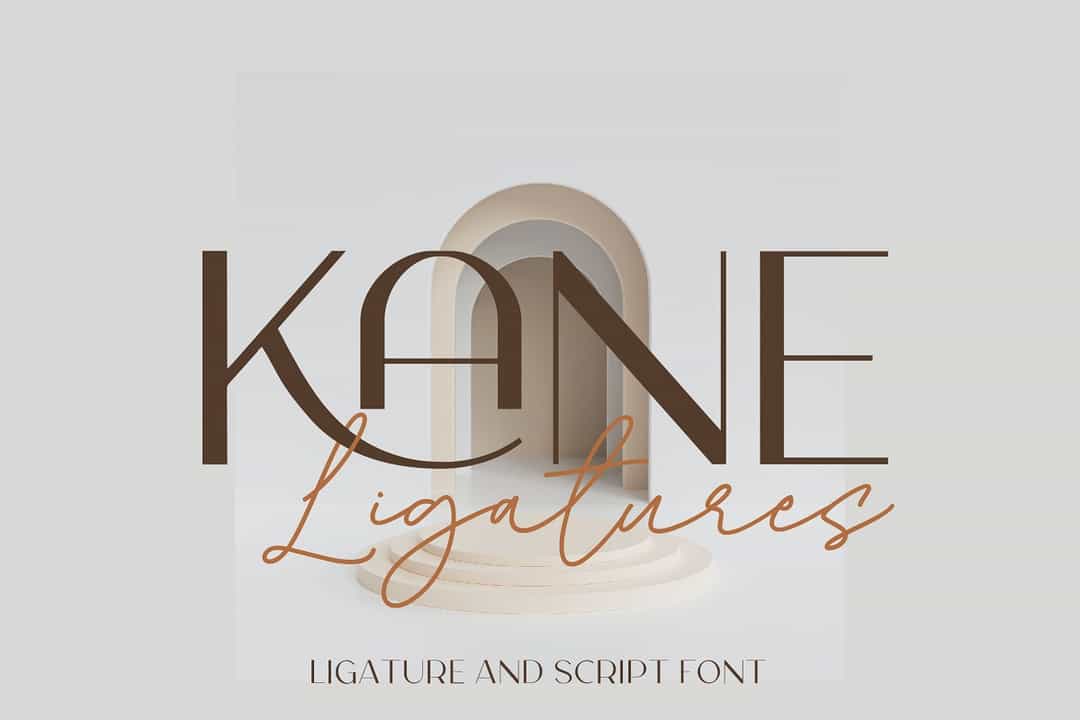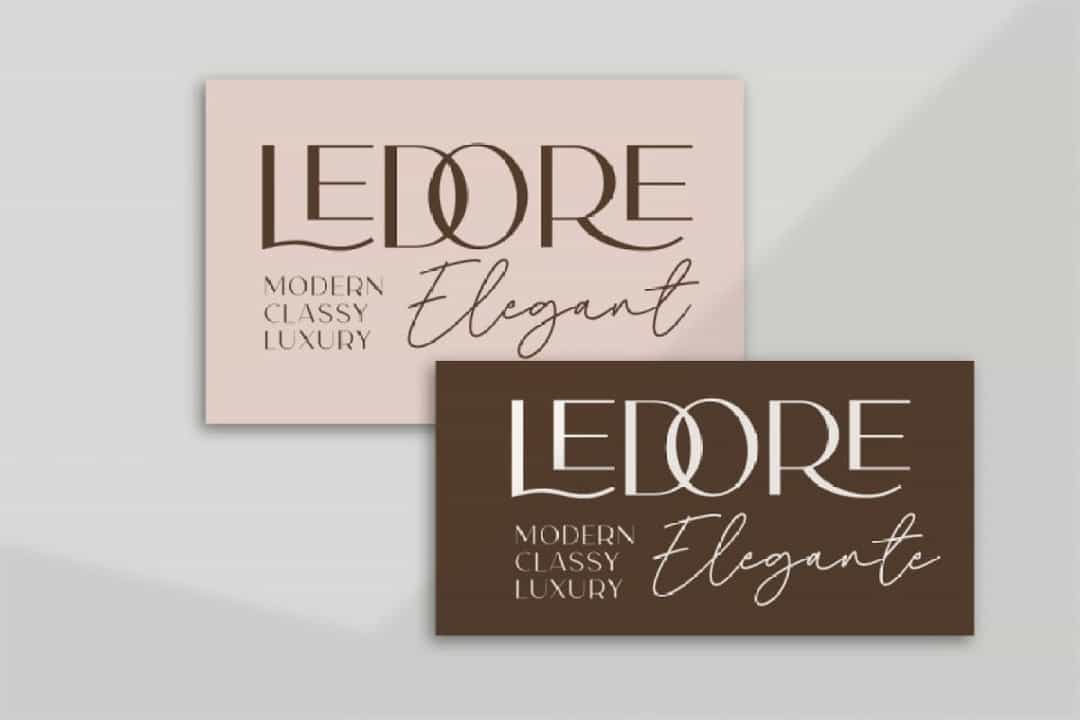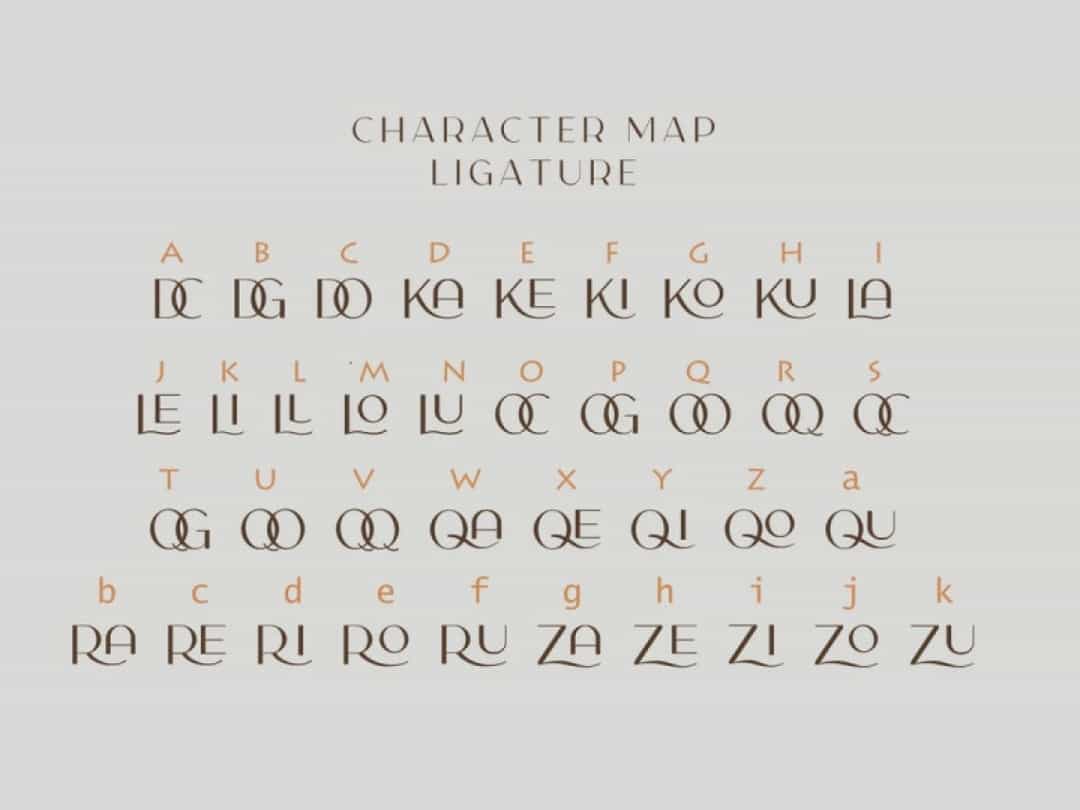
Kane is an elegant and fashionable typeface duo (without serifs and script). Its distinctive style allows it to fit seamlessly in many fashionable settings.